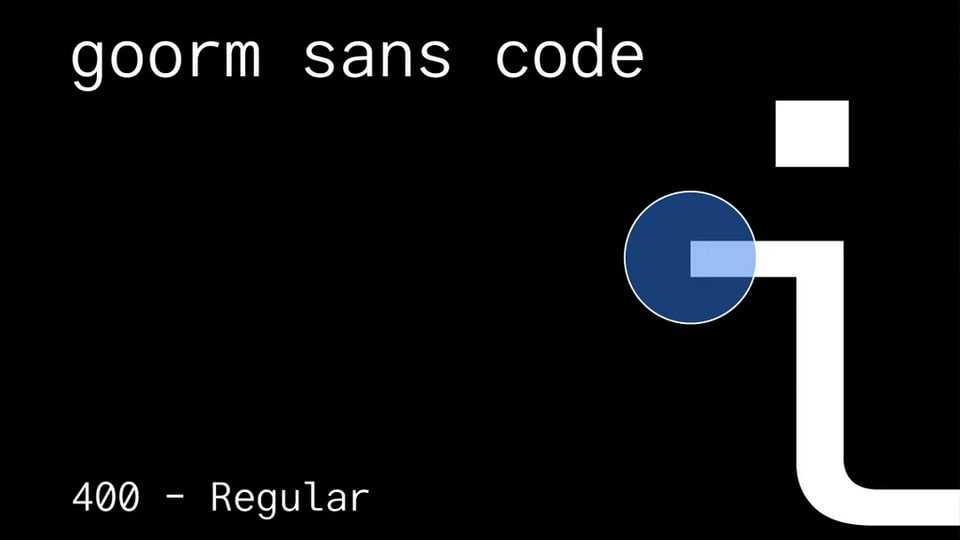
Download Goorm Sans Code font, a coding typeface designed to help developers focus without language barriers—supporting both Korean and English seamlessly.
Designer: Goorm Inc.